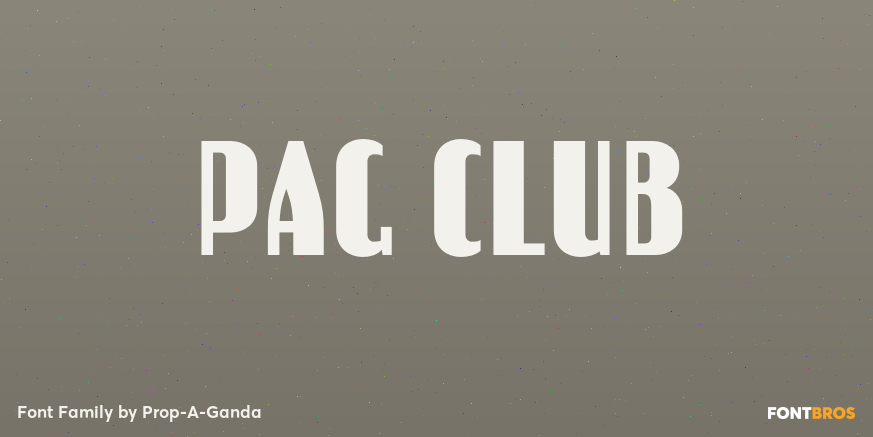
HomeFont BrosArt Deco (1910-1935)PAG Club Art Deco (1910-1935)Sans Serif PAG Club FacebookXPinterestWhatsApp 1 of 1 About PAG Club Inspired by and based on retro propaganda posters, movie posters, shopfront lettering & advertisements in the early 20th century. This is perfect font for your retrostyle project.  DOWNLOAD ON FONT BROSThis font is sold and delivered by Font Bros. Font Canyon may earn a commission if you buy through this link. People also explored Midnight Diner Font Beauty Mermaid Font Persefone Beautiful Moment Font Premigala Font Bee Honey Font Quite Colorful Font Love Girl Font Umbrella Font 223 0 TagsPAG Club Font Previous articleTondellaNext articleKinkee LEAVE A REPLY Cancel reply Comment: Please enter your comment! Name:* Please enter your name here Email:* You have entered an incorrect email address! Please enter your email address here Website: Save my name, email, and website in this browser for the next time I comment. Personal Use Free Astagina Signature Personal Use Free Read more about this font Knox Personal Use Free Read more about this font Adeline Personal Use Free Read more about this font Old Linoleum Personal Use Free Read more about this font BLOG Free Fonts Risk: Why Free Fonts Can Be Dangerous for Designers Free Fonts Risk: Why Free Fonts Can Be Dangerous for Designers Using free fonts is a common practice in web and graphic design. However, the... Modern Sans-Serif Fonts That Brands Love in 2025 Where to Buy American Fonts Online in 2024 5 Fonts That Will Dominate Design Trends in 2026